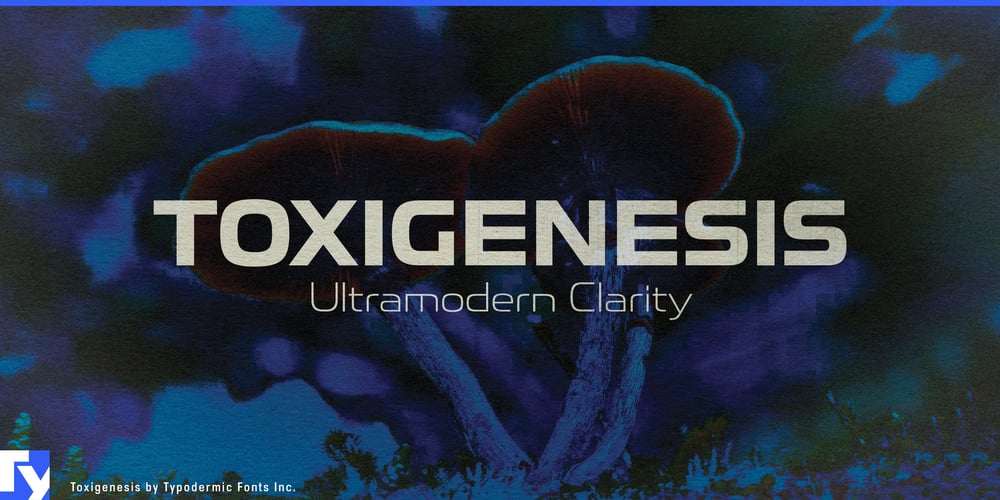
Toxigenesis
Toxigenesis font
Toxigenesis Font Family was designed by Ray Larabie and published by Typodermic. Toxigenesis contains 10 styles and family package options. Toxigenesis—a typeface that grows on you with the subtle allure of a deadly mushroom. Inspired by the sleek lines of consumer electronics and the bold curves of automotive design, this font family exudes a captivating blend of scientific precision and industrial might. Like the deceptively beautiful caps of certain fungi, Toxigenesis commands attention with its wide, plastic letterforms that seem to pulse with hidden power.Beneath its smooth surface, Toxigenesis harbors a potent message. Each glyph is carefully crafted to convey a sense of cutting-edge innovation, much like the alluring patterns on a poisonous mushroom’s gills. This typeface doesn’t just communicate—it infiltrates the viewer’s consciousness, leaving an indelible impression long after the first glance. Available in five weights and their italic counterparts, Toxigenesis offers designers a full spectrum of visual potency. From the light and airy spores of its thinnest weight to the dense, mycelium-like network of its boldest cut, this typeface provides the versatility to create designs that are both striking and subtly unnerving.Whether you’re developing branding for a biotechnology startup, designing interfaces for advanced research equipment, or crafting visuals for a cutting-edge product launch, Toxigenesis delivers impact with scientific precision. Its letterforms spread across your designs like a carefully cultivated culture, transforming ordinary text into something extraordinary—and potentially intoxicating. Toxigenesis doesn’t discriminate in its appeal. Like a cosmopolitan species of fungus, it thrives across diverse linguistic ecosystems. From the familiar terrain of Latin-based European languages to the rich substrates of Vietnamese, Greek, and most Cyrillic-based writing systems, this typeface proliferates effortlessly, ensuring your message retains its potency across global markets.Are you prepared to inoculate your designs with a dose of Toxigenesis? This isn’t just a font—it’s a visual catalyst that can transform your projects from mundane to mesmerizing. Download Toxigenesis today and watch as your creations evolve into something captivatingly powerful. Remember, in the world of design, sometimes the most alluring solutions are the ones that come with a warning label.